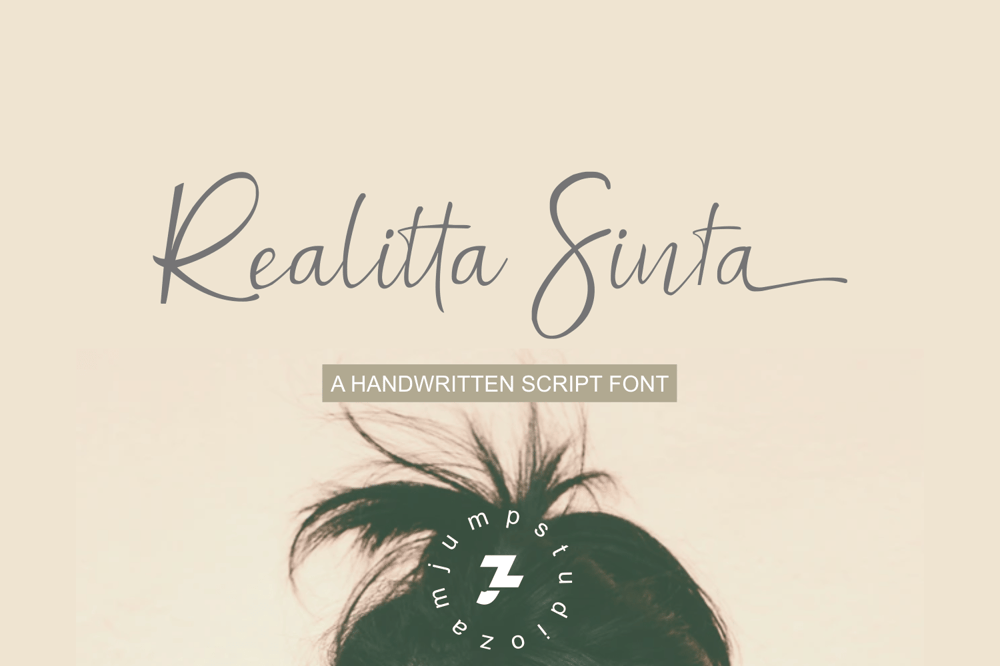
Realitta Sinta
Realitta Sinta font
Realitta Sinta Font Family was designed by Zamjump and published by Zamjump. Realitta Sinta contains 1 styles and family package options. “Realitta Sinta” is a handwritten font that was created using the Infinite Painter application for sketches. This font is inspired by simplicity which is then attached to each stroke.Realitta sinta is a simple font that includes various features such as ligatures and alternates. Realitta Sinta suitable for various needs such as writing invitations, signatures, promo needs, business card design, Photography logos, casual wear, profession or work and others.Ligature and lowercase alternate swash are differentiators for various purposes or adjust the desired style,